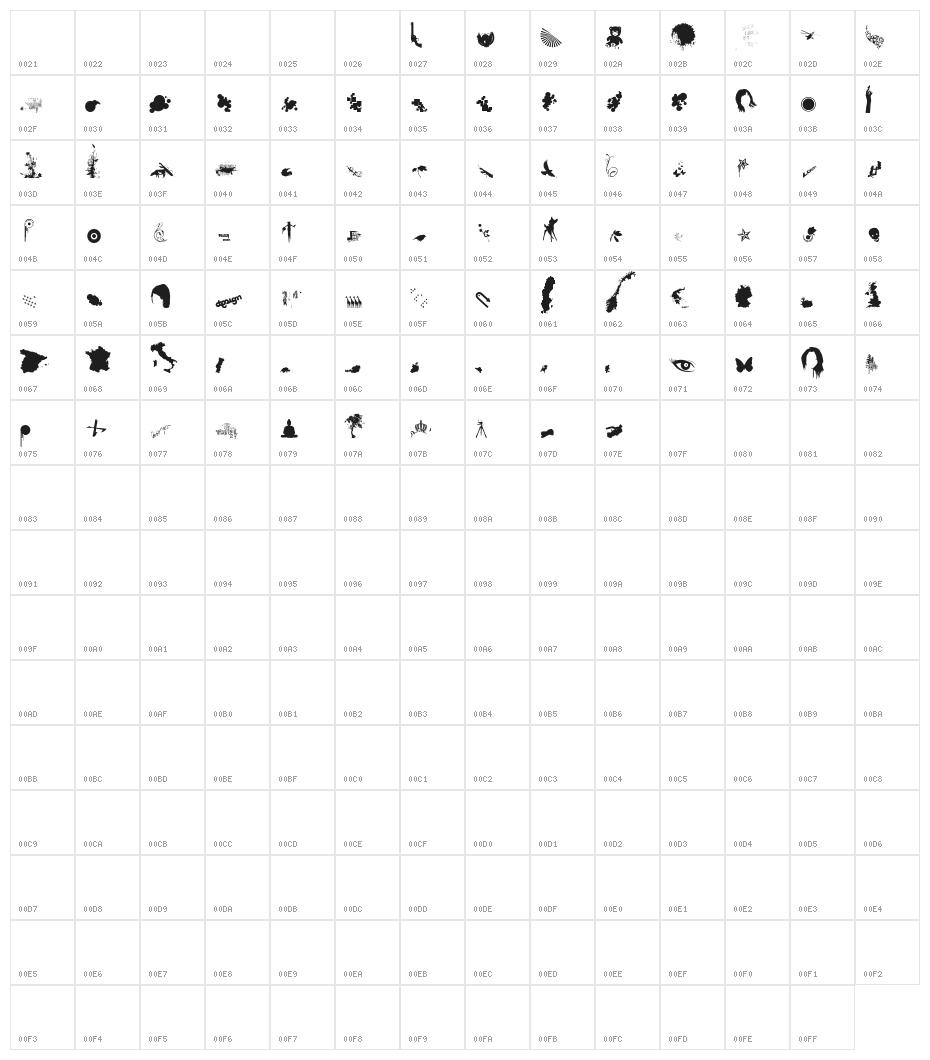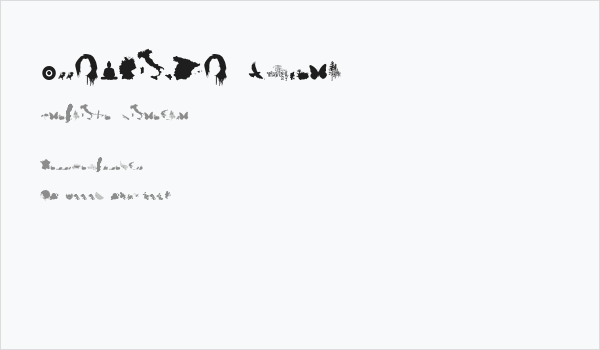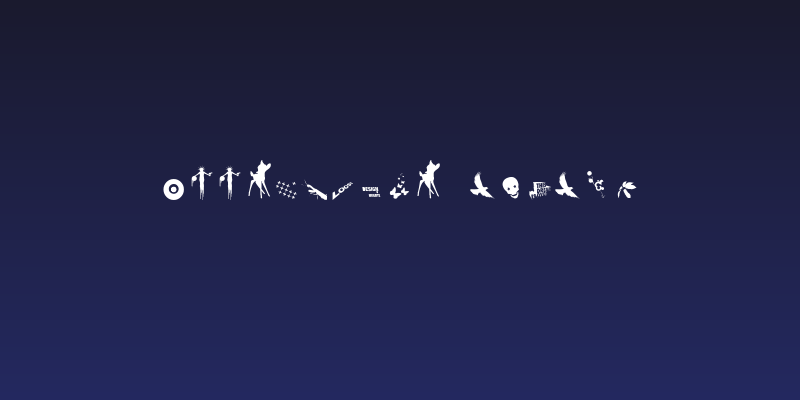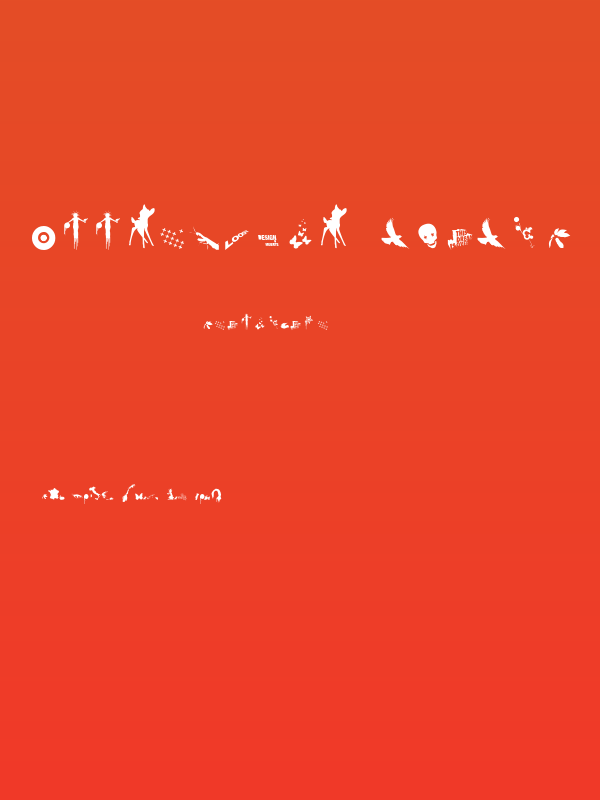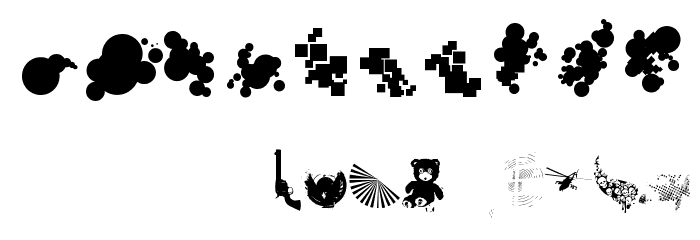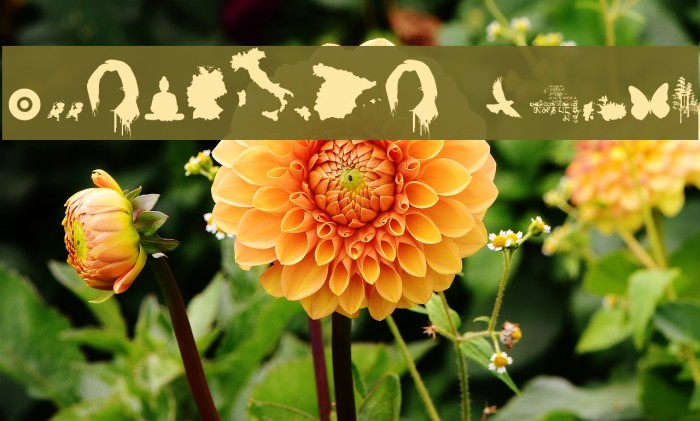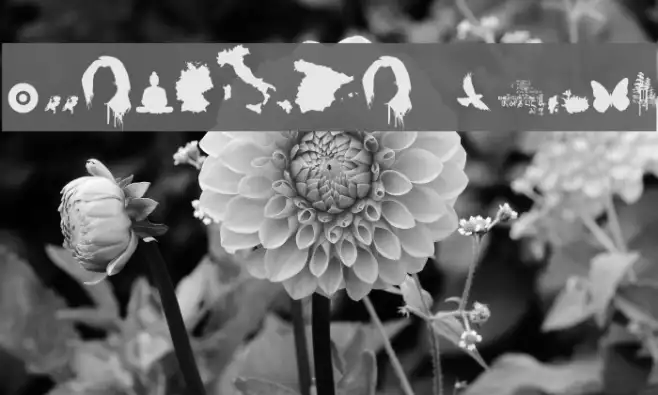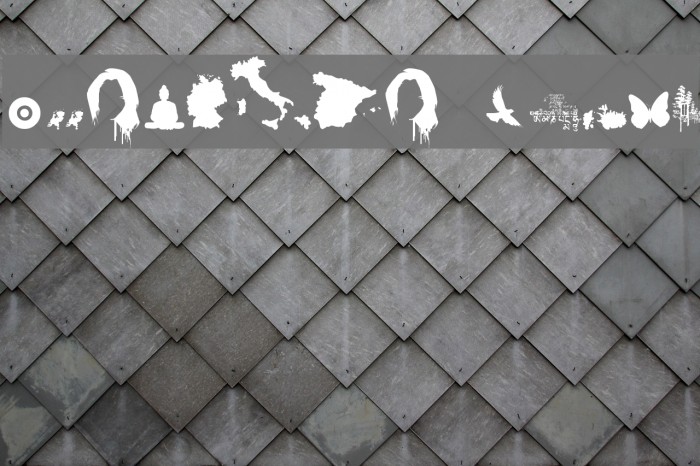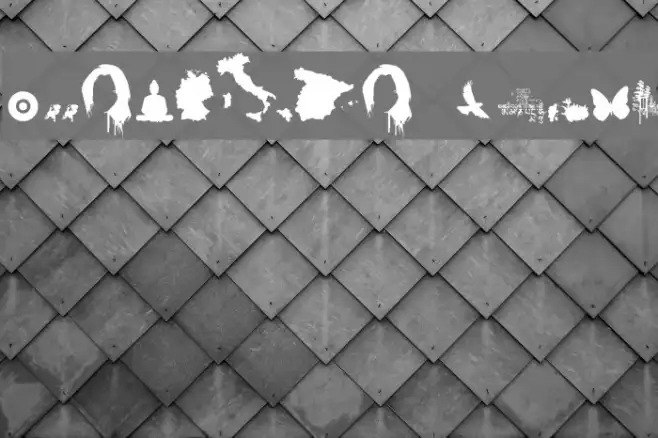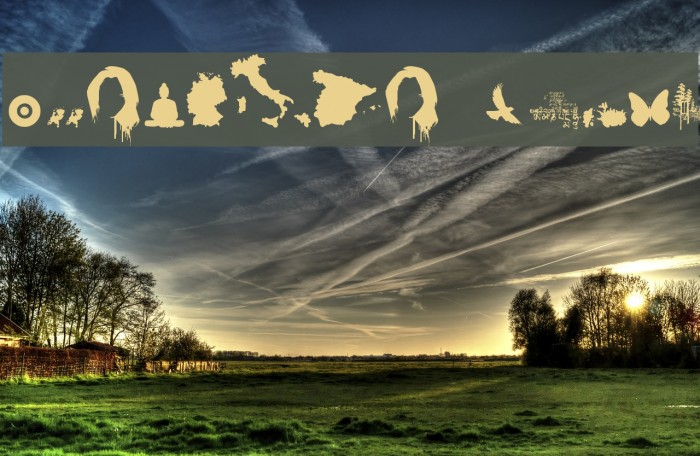
Loosydings Expert Font
Loosydings Expert Description
A highly decorative and eclectic dingbat font featuring a wide variety of pictorial symbols, silhouettes, and abstract shapes, including animals, people, objects, nature elements, and geometric forms. Each character is a unique illustration rather than a traditional letter or numeral.
| Overall Style | Decorative, Eclectic, Artistic |
| Use Case | Decorative elements, Icons, Graphic embellishments |
| Proposed Projects | Poster art, album covers, creative branding, scrapbooking, digital collages, decorative elements in graphic design. |